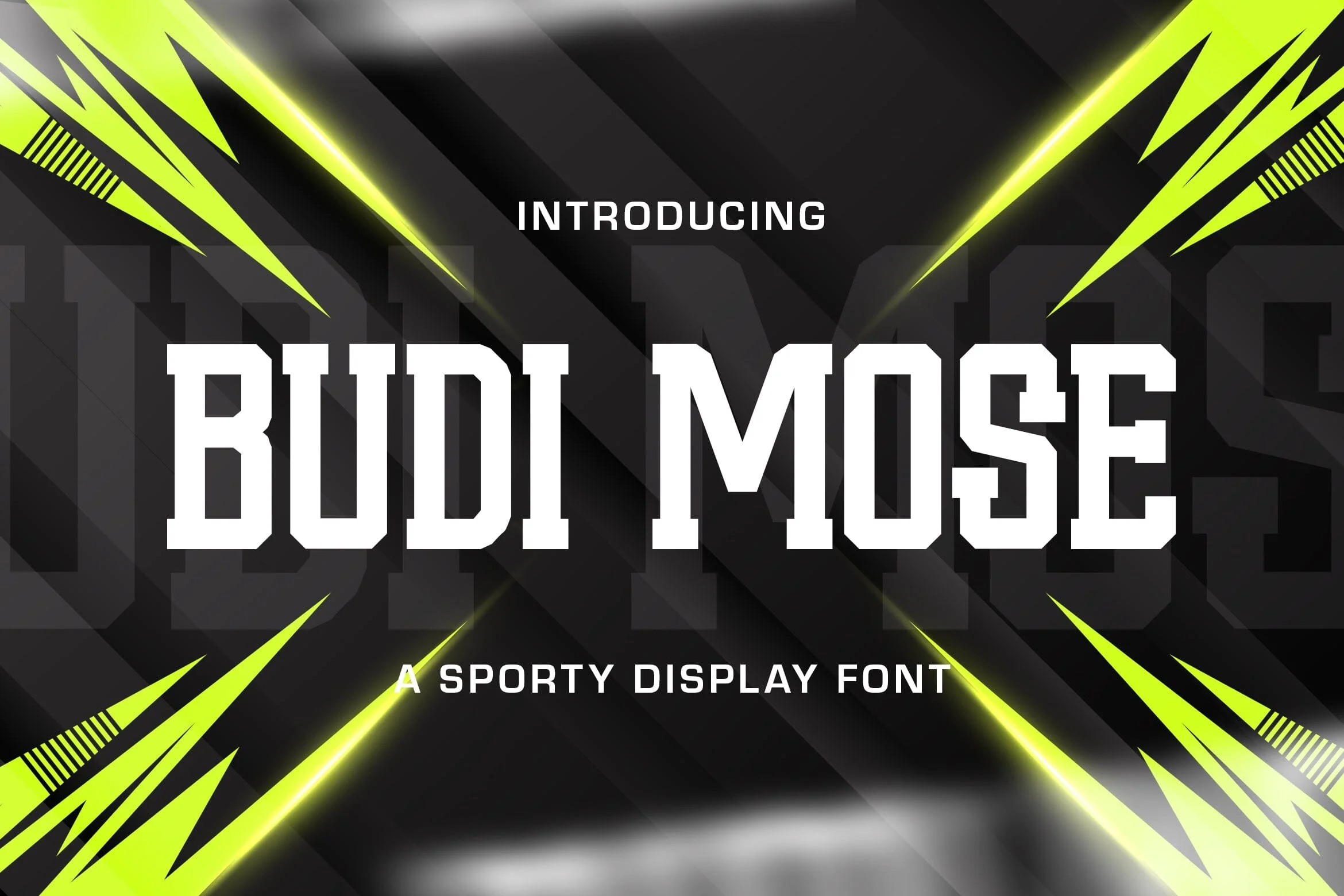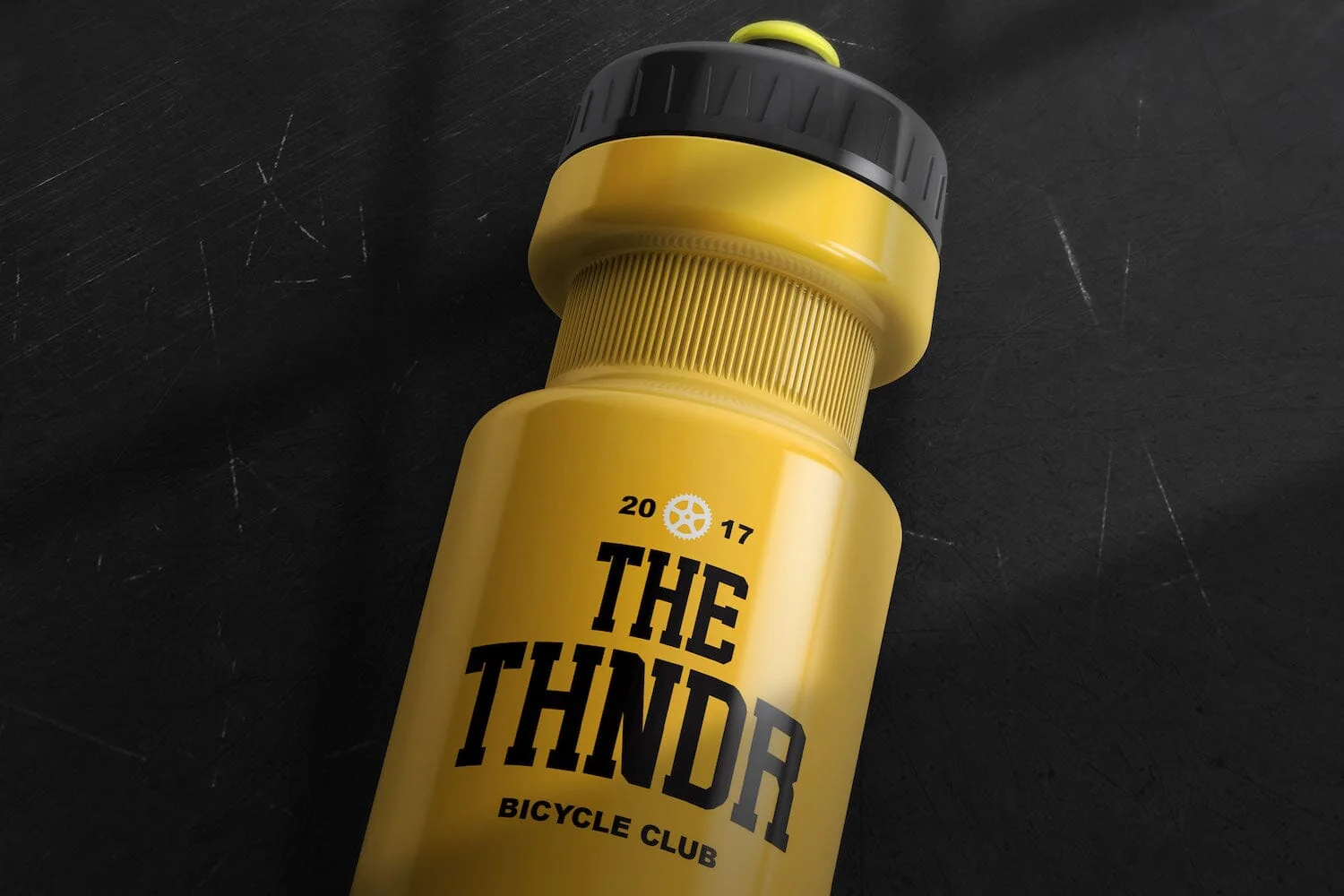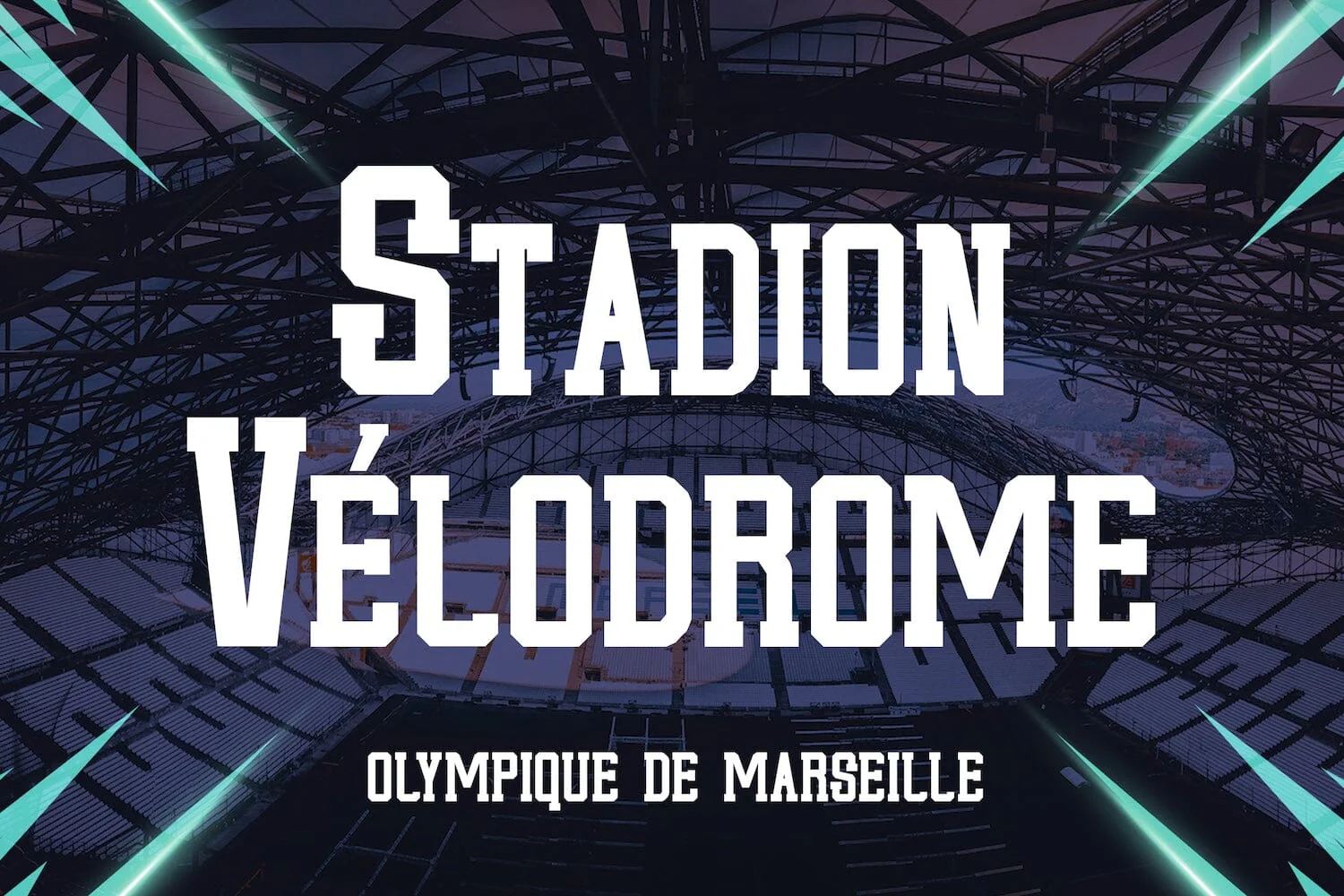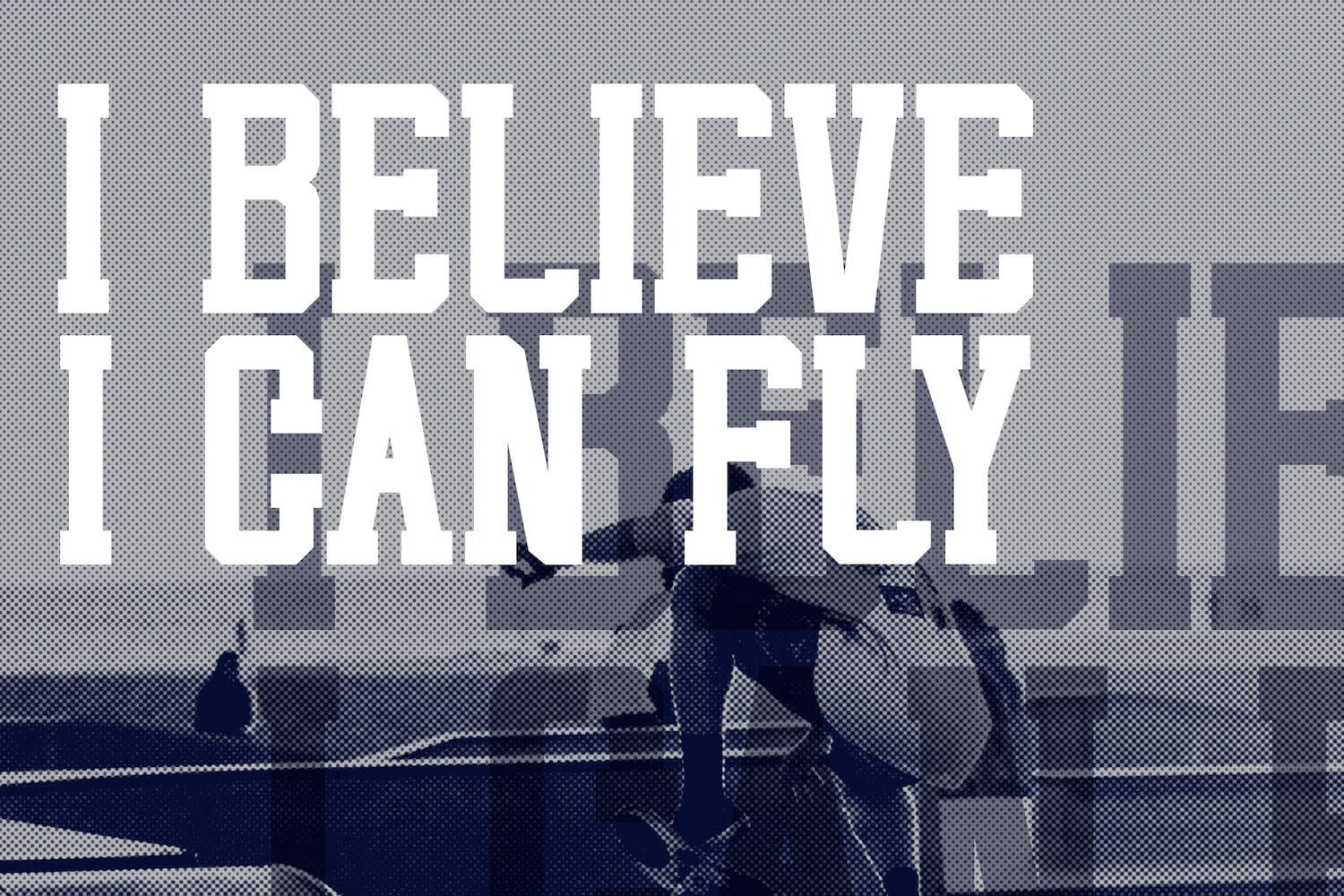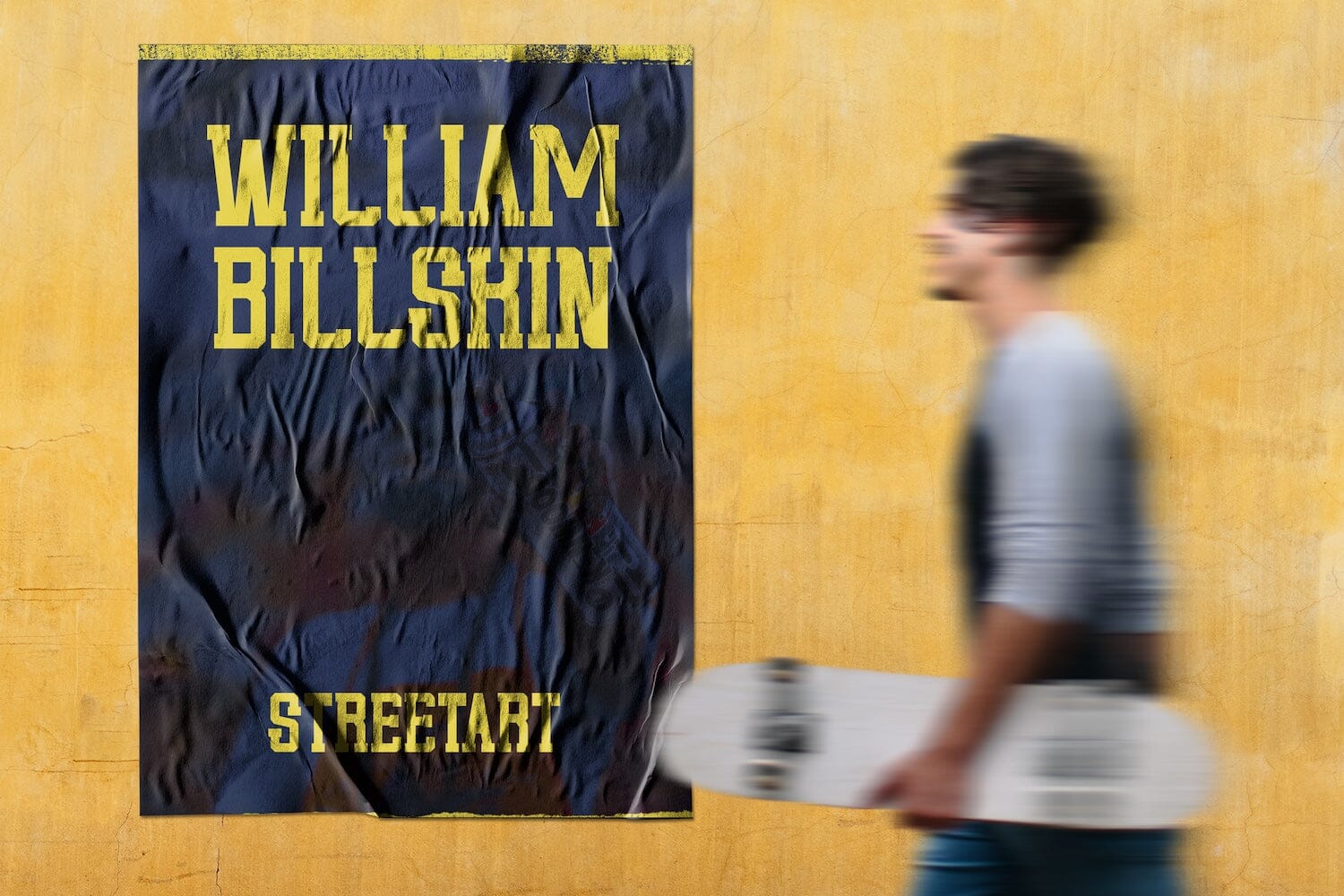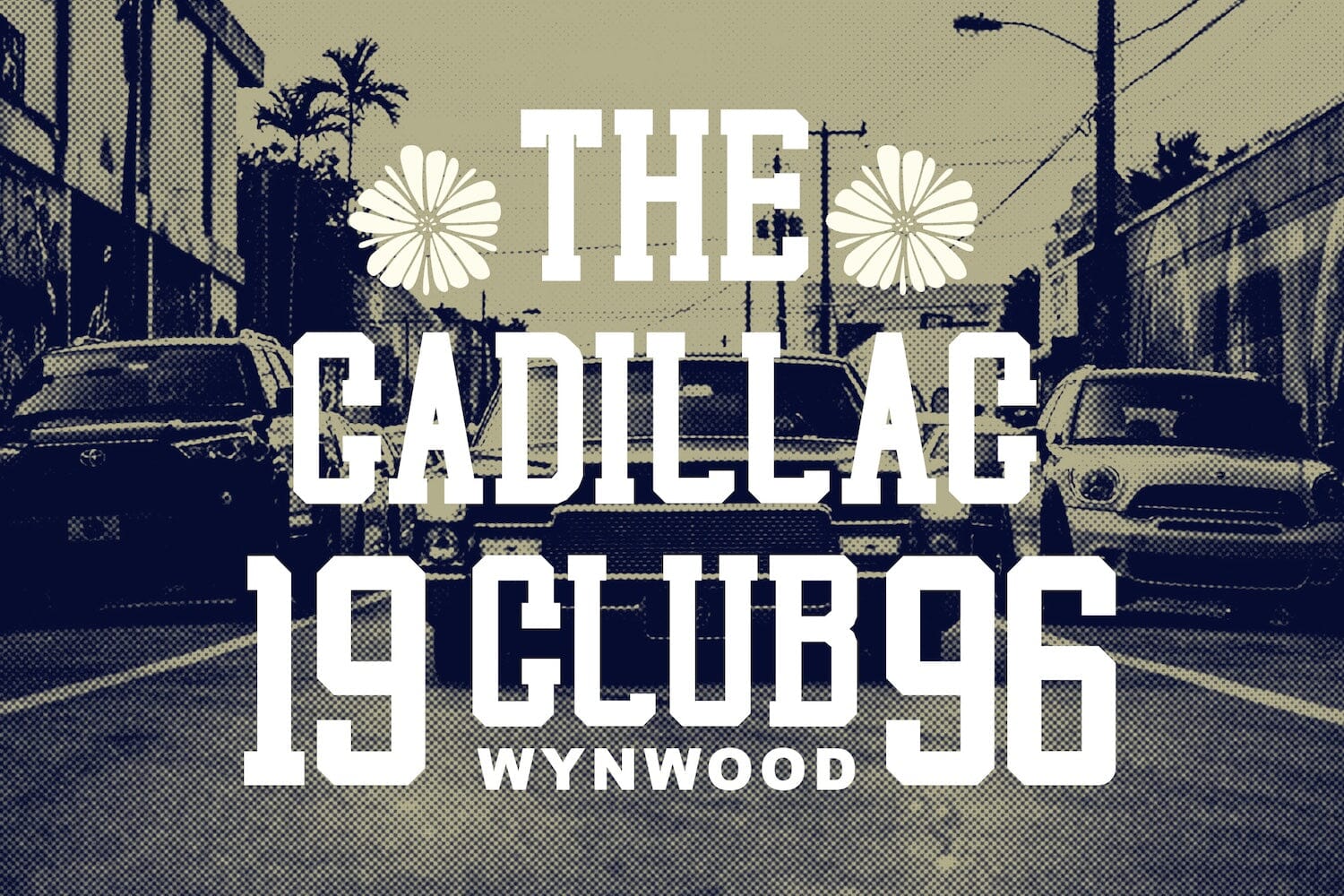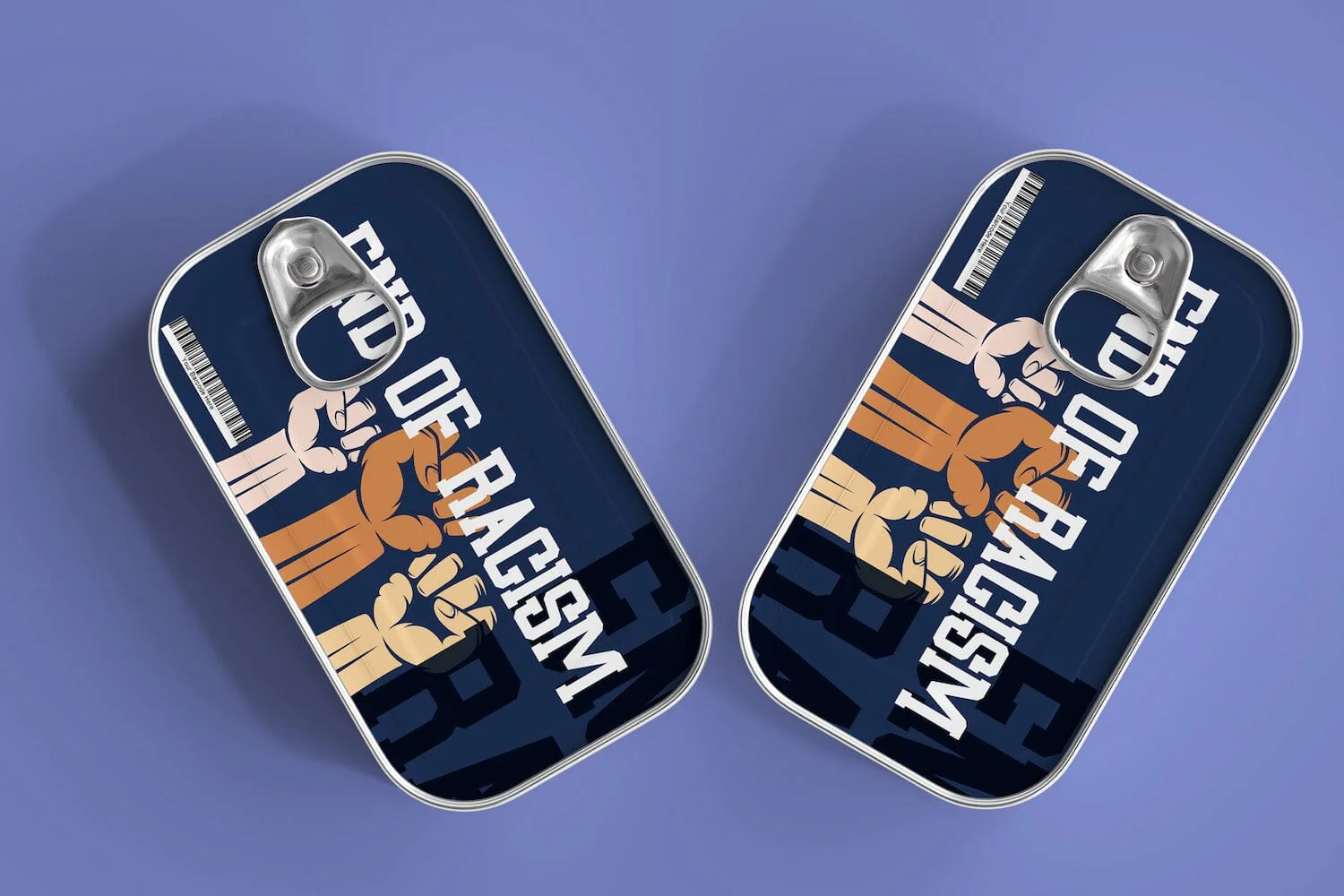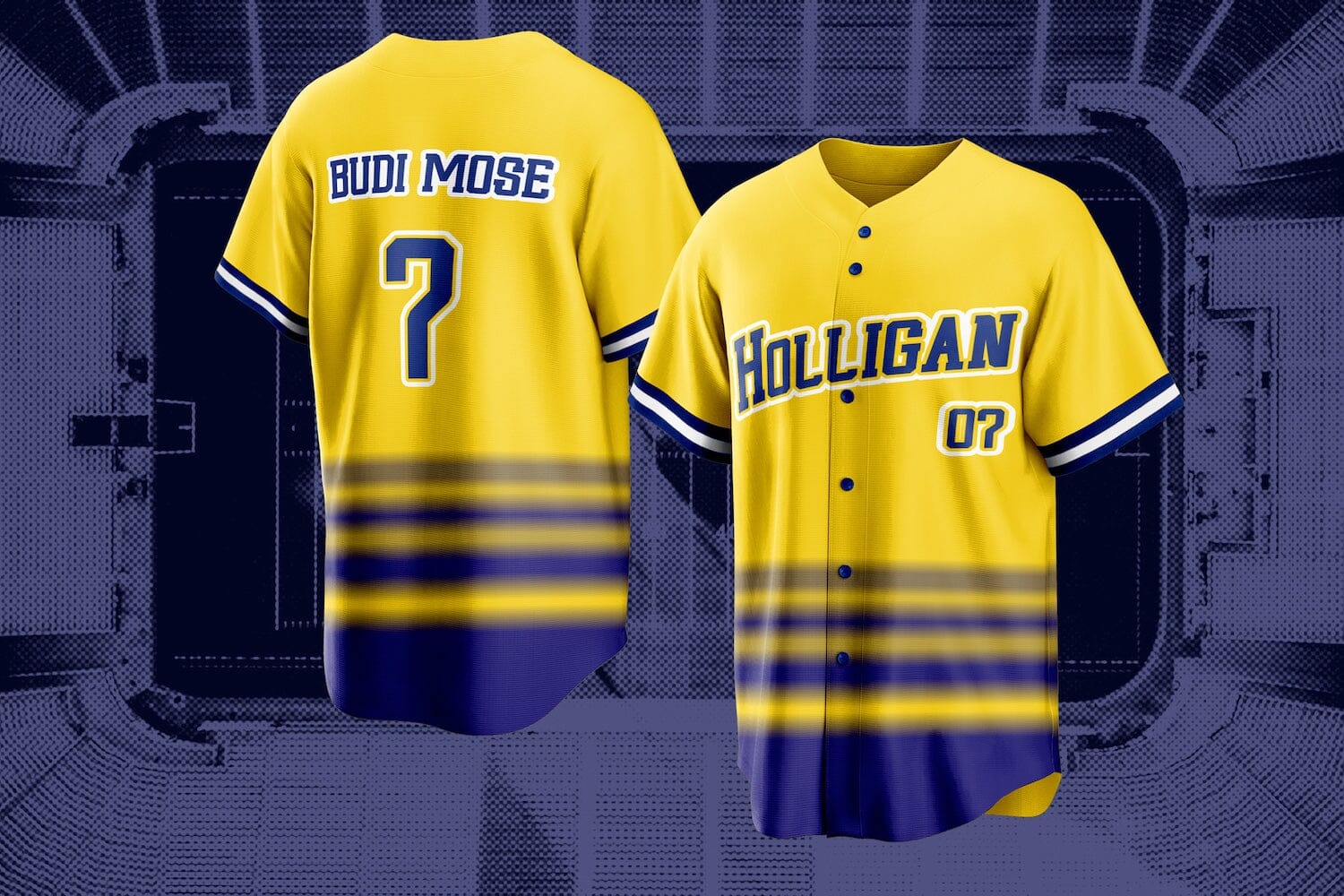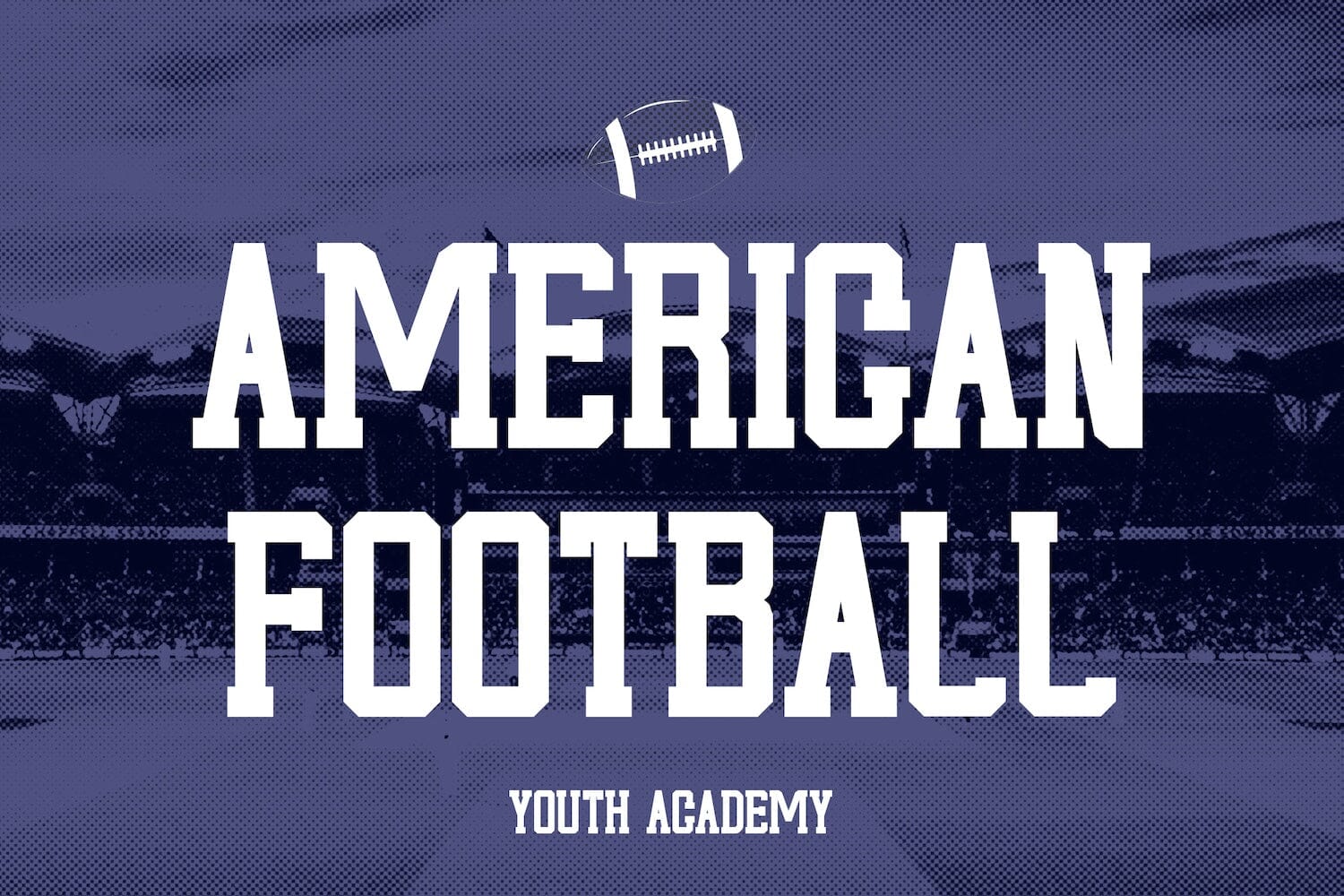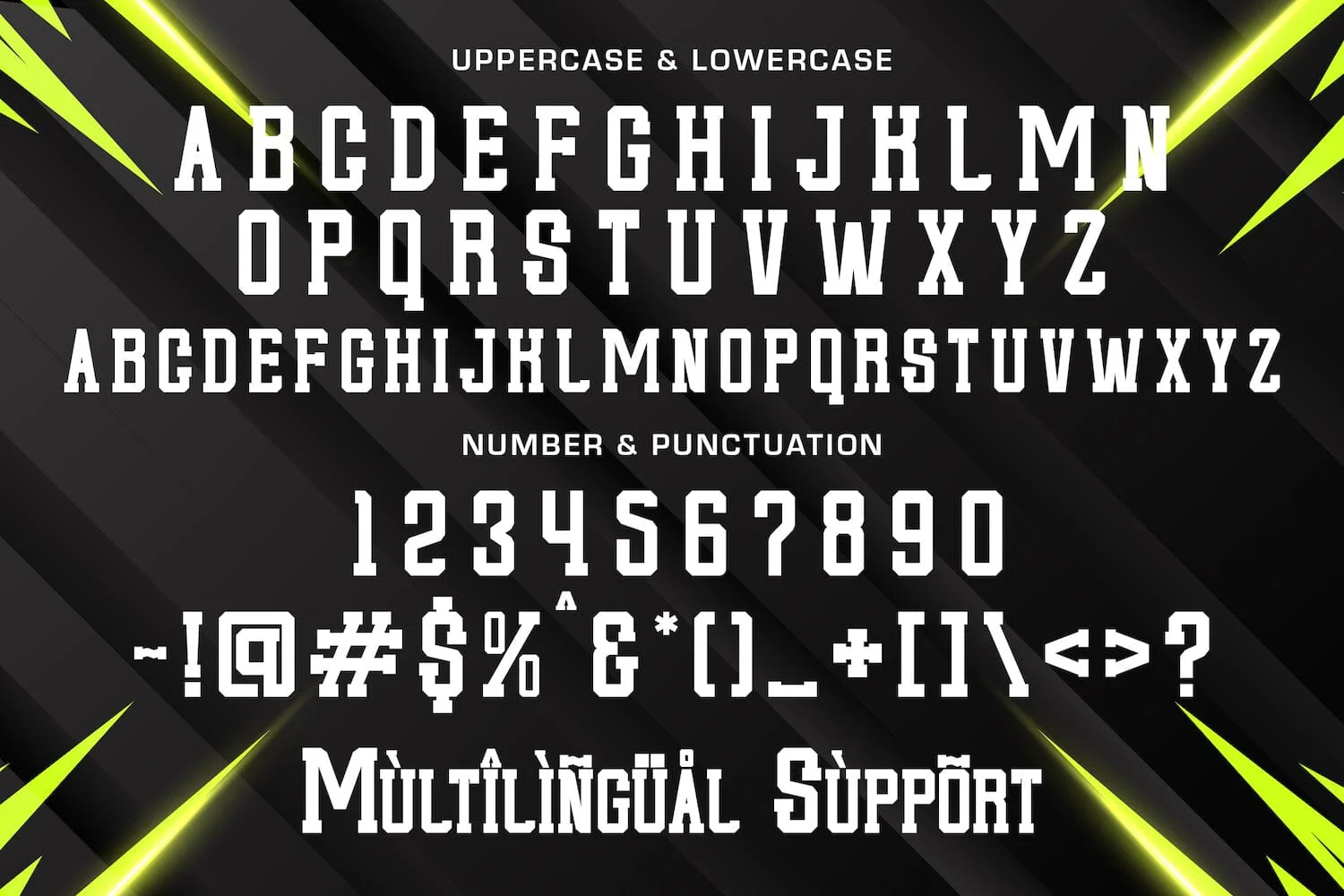
Budi Mose - Sporty Display Font
Introducing Budi Mose - Sporty Display Font
Budi Mose is a sporty and modern display font. This playfully conceptual typeface font will look truly outstanding in a wide range of contexts. This font is very suitable for your any sports needs.
Introducing Budi Mose - Sporty Display Font
Budi Mose is a sporty and modern display font. This playfully conceptual typeface font will look truly outstanding in a wide range of contexts. This font is very suitable for your any sports needs.